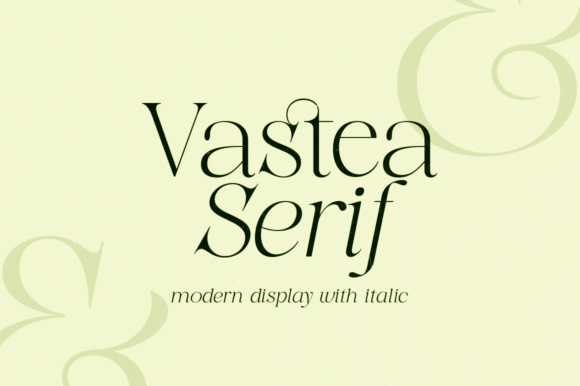
Unleash the Power of Vastea Serif: A Font Symphony of Boldness and Fluidity
Prepare to be mesmerized by Vastea Serif, a groundbreaking font that harmoniously fuses the commanding presence of display typography with the graceful flow of italic style. Step into a world of captivating letterforms, where strength and expression entwine to create a dynamic typographic masterpiece.
Vastea Serif is not just a font; it's a visual symphony that commands attention and ignites emotions. Its bold display characteristics demand a presence, while the subtle italic elements infuse a sense of movement and fluidity. This harmonious blend results in a typeface that effortlessly captivates, transforming ordinary designs into extraordinary visual experiences.
Immerse yourself in the versatility of Vastea Serif, a font that adapts seamlessly to a myriad of design endeavors. Whether crafting captivating headlines, designing eye-catching posters, or creating unforgettable logos, Vastea Serif rises to the challenge, adding a touch of creativity and sophistication to every project.
With Vastea Serif as your typographic weapon, ordinary designs transform into captivating masterpieces. Its striking presence commands attention, while its italic grace adds a touch of elegance and dynamism. Embrace the power of Vastea Serif and unlock a world of design possibilities, where every project captivates and inspires.